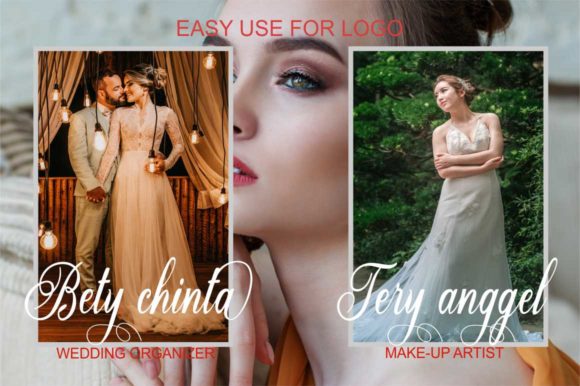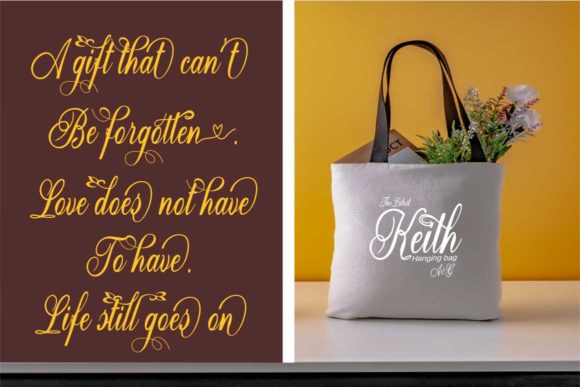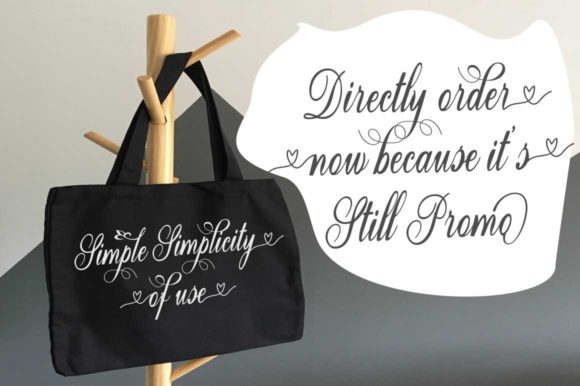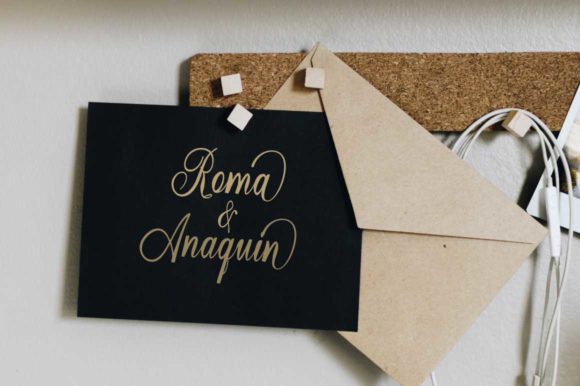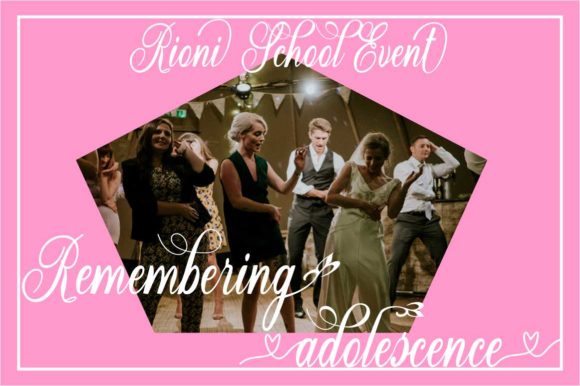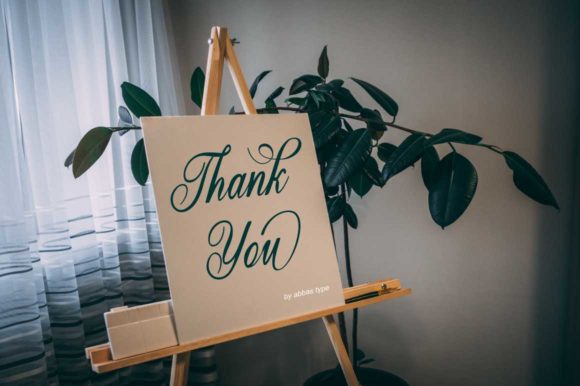
Baikeia Font
Baikeia is a new modern calligraphy script font This font has a casual and elegant style and can be used for various purposes, such as logos, product packaging, wedding invitations, branding, headlines, signatures, book covers, posters, quotes, and more.